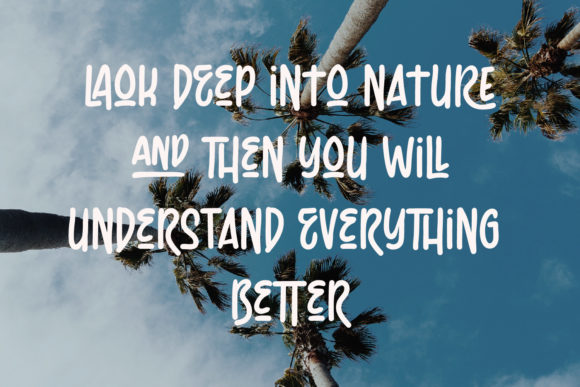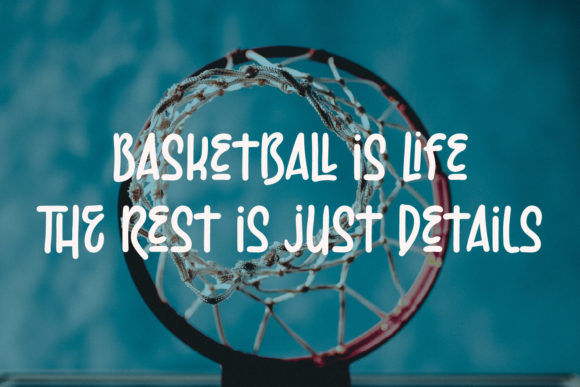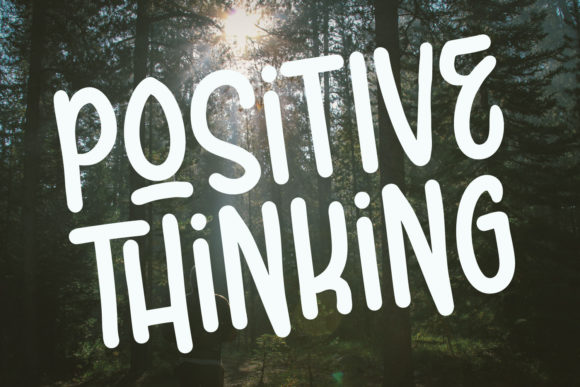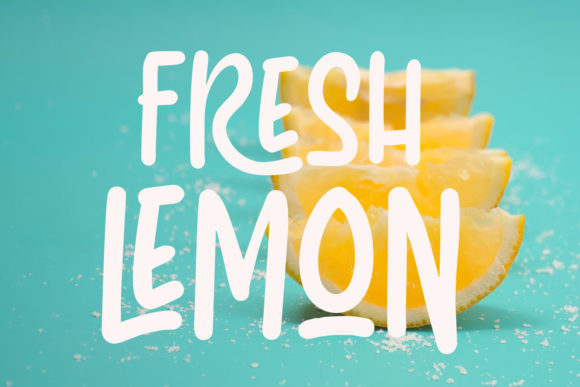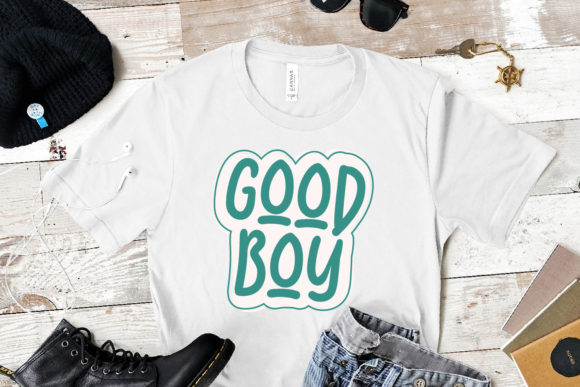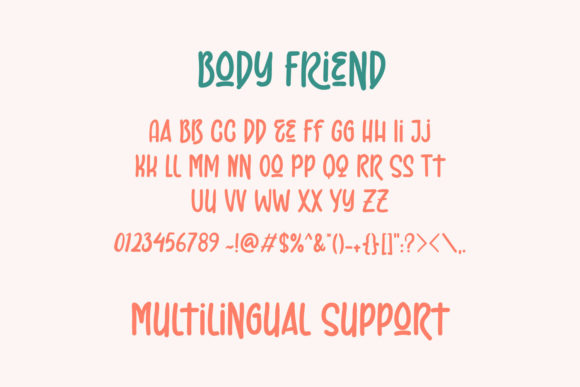
Introducing Body Friend Font: The Ultimate Casual Display Font for Designers and Crafters
Are you tired of using the same old fonts for your designs and crafts? Look no further! Body Friend Font is here to revolutionize your creative projects with its cool and casual display style. This versatile font is perfect for a wide range of applications, from digital design and presentations to crafting and making greeting cards.
What Makes Body Friend Font So Special?
Body Friend Font is more than just a font – it’s a game-changer for designers and crafters alike. Its unique and playful style is sure to capture the attention of your audience and add a personal touch to your projects. Whether you’re creating a DIY tutorial, a social media graphic, or a handmade card, this font is sure to become your go-to choice.
Key Features of Body Friend Font
- Casual and Cool Style: Body Friend Font boasts a relaxed and informal style that’s perfect for creative projects.
- Display Font: This font is designed to make a statement, making it ideal for headings, titles, and emphasis text.
- Versatile: Use it for digital design, presentations, crafts, greeting cards, and more!
- Easy to Read: Despite its casual style, Body Friend Font is clear and easy to read, even at smaller sizes.
Use Cases for Body Friend Font
So, how can you use Body Friend Font in your creative projects? Here are a few ideas to get you started:
- Digital Design: Add a personal touch to your social media graphics, blog posts, and website headers with Body Friend Font.
- Presentations: Make your presentations more engaging and fun with this unique font.
- Crafts: Use Body Friend Font to add a special touch to your handmade cards, scrapbook pages, and DIY projects.
- Greeting Cards: Create personalized and eye-catching greeting cards for any occasion.
Why Designers and Crafters Love Body Friend Font
Body Friend Font has quickly become a favorite among designers and crafters, and for good reason. Here are just a few reasons why:
- Unique Style: This font offers a fresh and unique style that’s sure to set your projects apart.
- High-Quality: This font is designed to deliver high-quality results, even at large sizes.
Tips for Getting the Most Out of Body Friend Font
To get the most out of Body Friend Font, here are a few tips to keep in mind:
- Experiment with Sizes: Try out different font sizes to see how Body Friend Font looks in various contexts.
- Pair it with Other Fonts: Combine Body Friend Font with other fonts to create a unique and eye-catching look.
- Use it for Emphasis: Use Body Friend Font to draw attention to important text or to add emphasis to your designs.
Body Friend Font is a versatile and stylish display font that’s perfect for designers and crafters alike. With its cool and casual style, this font is sure to become a staple in your creative toolkit. Whether you’re working on digital design projects, crafts, or greeting cards, Body Friend Font is the perfect choice. So why wait? Give it a try today and see the difference it can make in your creative projects!